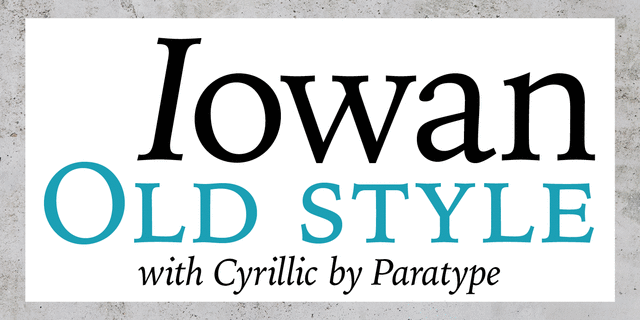
About Iowan Old Style was designed for Bitstream in 1990 by noted sign painter John Downer. Iowan Old Style is a hardy contemporary text design modeled after earlier revivals of Jenson and Griffo typefaces but with a larger x-height, tighter letterfit, and reproportioned capitals. Cyrillic letters were designed by Natalia Vasilyeva in 2016. Iowan Old Style Cyrillic was released by Paratype in 2017.
Associations for font family Iowan Old StyleTypeface personality and character:
comme il faut, noble, conservative, traditional, classic, pretentious, artistic, silver, educated, masterful, architectural, aristocratic, elite, high-quality, historical, humanitarian, dynamic, accurate, expensive, clever, sacral, polite, elegant, beautiful, orderly, regardful, diligent, tactful, exemplary, refined, strong, convincing, authoritative, important, self-assured, stable, serious, robust, cinematic
library, art, museum, literature, aesthetics, prose, poetry, music, architecture, heraldry, tea, wine, education, silver, comme il faut, history, castle, concert, Bible, finance, landscape, philosophy, symphony, flowers, beauty, painting, cards, monument, memorial, bank note, coin, securities, dinner, alcohol, cognac, trophy, reward, cinema, sunset, flag Typeface associated with age: